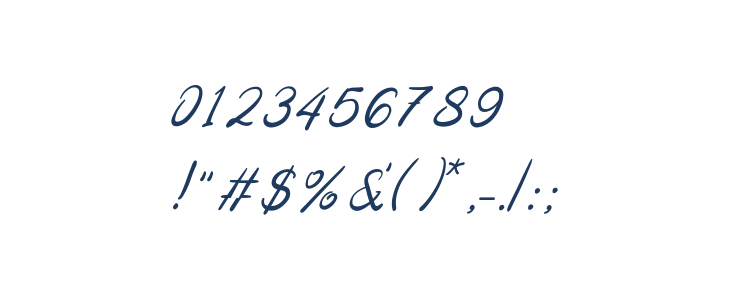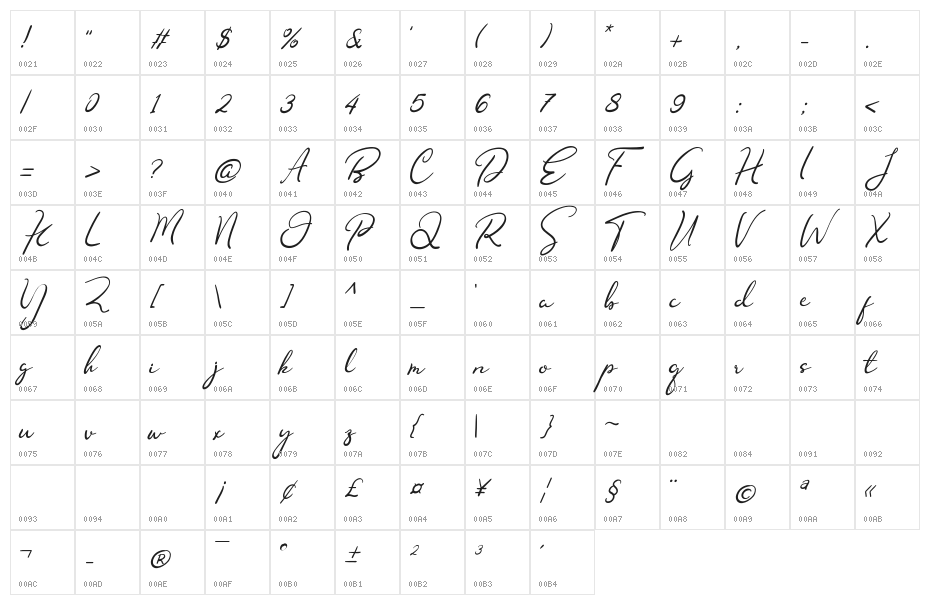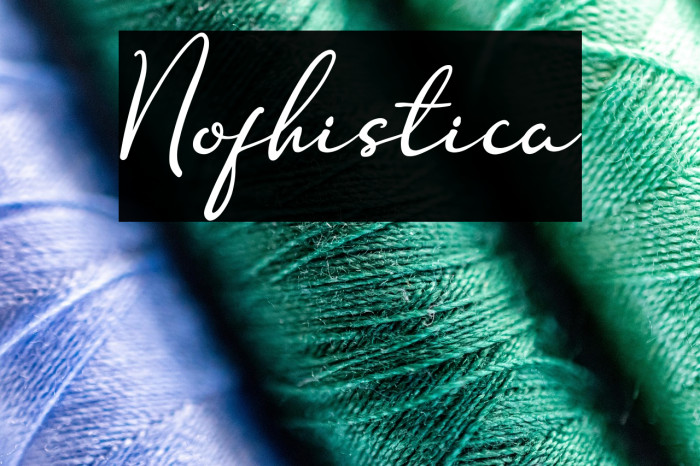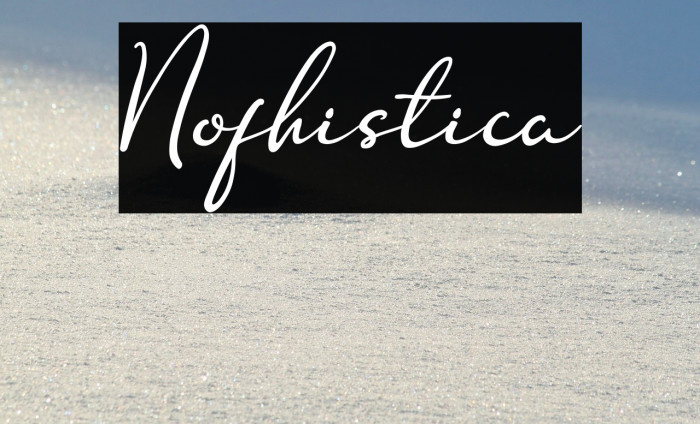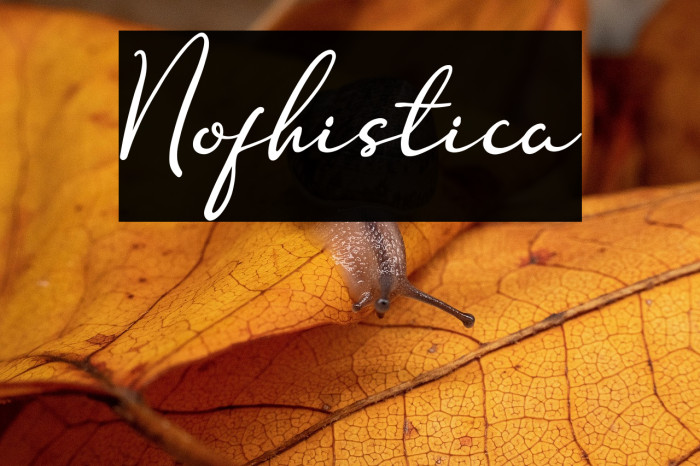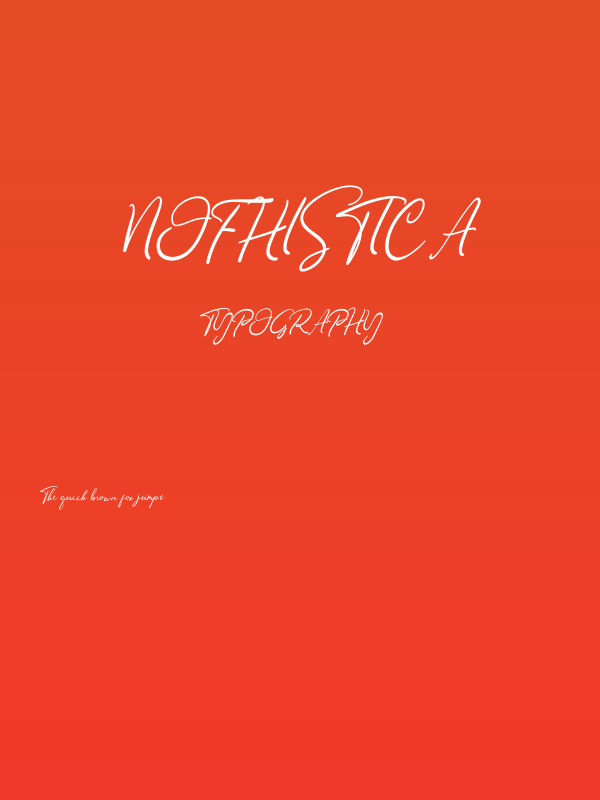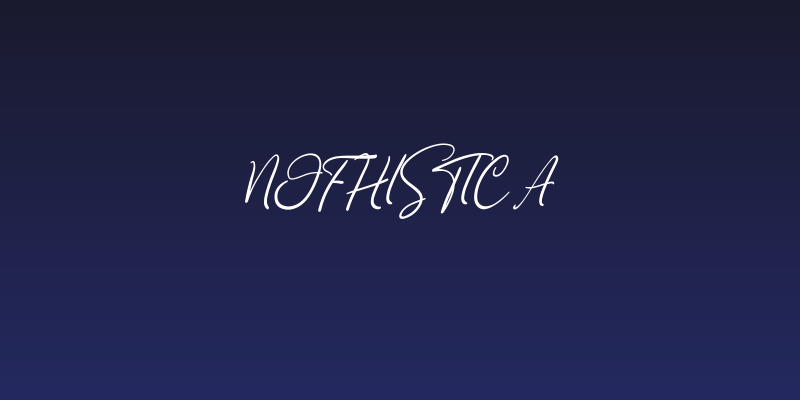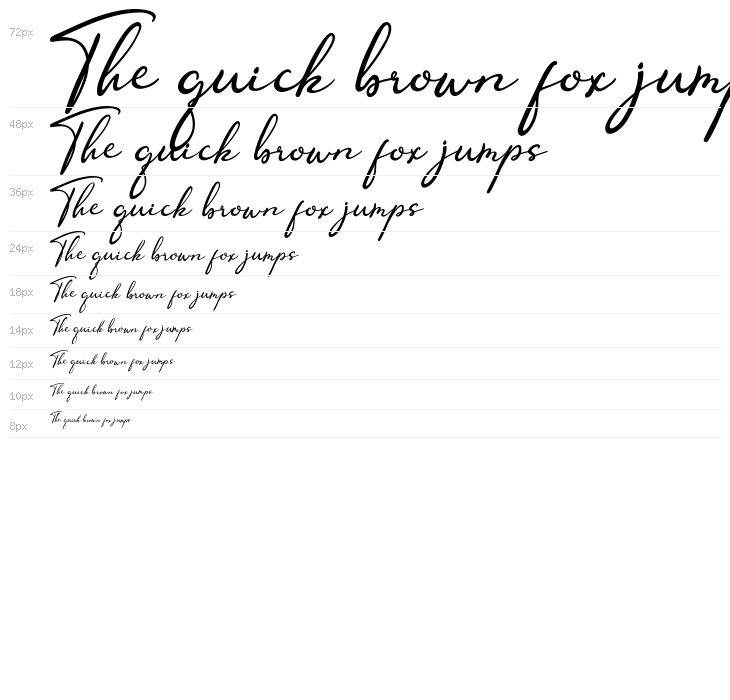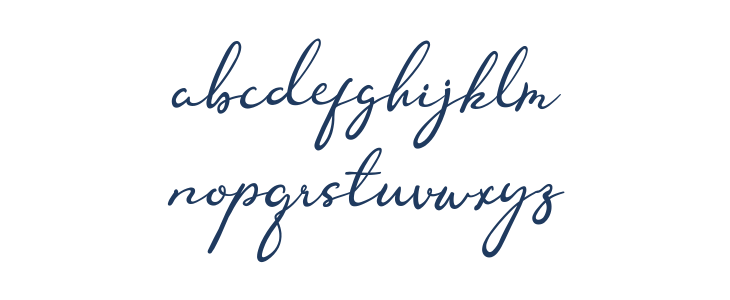
Nofhistica Font
Nofhistica Description
This elegant script font features fluid, cursive strokes that mimic the natural flow of handwriting. The uppercase letters are gracefully elongated, with sweeping curves and loops that add a touch of sophistication. The lowercase letters maintain a consistent style, with smooth connections between each character, enhancing readability while preserving the font's artistic flair. The numerals are designed with a similar cursive style, ensuring uniformity across the character set. Special characters are thoughtfully integrated, maintaining the font's cohesive appearance. This font is ideal for projects that require a personal, handwritten touch, such as invitations, greeting cards, or branding materials.
| Overall Style | Elegant, Handwritten |
| Proposed Projects | Ideal for wedding invitations, greeting cards, personal branding, and elegant stationery. |